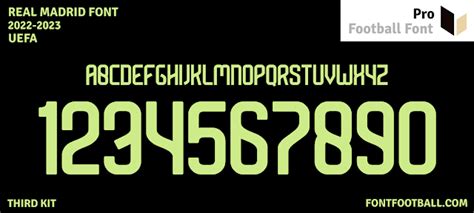
Real Madrid 2022 Font: A Comprehensive Guide
What is the Real Madrid 2022 Font?
Okay, so what exactly is the Real Madrid 2022 font ? It’s more than just some letters and numbers slapped on a jersey. It’s a carefully crafted typeface designed to represent the club’s brand , history, and values. This font is what you see on the back of the players’ jerseys during their matches, as well as in various promotional materials, and it becomes synonymous with that particular season. For the 2022 season, Real Madrid likely used a font that was both modern and classic, blending the traditional elegance of the club with a contemporary feel. This balance is crucial for maintaining their image as a global football powerhouse. The specific design elements, such as the font’s weight, spacing, and serifs (or lack thereof), all contribute to its overall impact. When Real Madrid chooses a font, they’re thinking about how it will look on television, on merchandise, and in print. They want something that’s easily readable, instantly recognizable, and, most importantly, something that screams Real Madrid . The font choice also needs to comply with La Liga’s regulations, which often set guidelines for jersey fonts. This means the font must be clear and distinguishable to ensure players are easily identifiable by referees and fans alike. Beyond its practical purposes, the Real Madrid 2022 font carries a lot of emotional weight. It’s part of the visual language that unites fans and players, creating a sense of belonging and pride. When you see that font, you immediately think of the memorable moments, the thrilling victories, and the legendary players who wore that jersey. It’s a symbol of the club’s identity and a reminder of its rich history and tradition. The font also needs to be versatile enough to work across various platforms, from digital media to physical products. It needs to look just as good on a small smartphone screen as it does on a giant banner at the Santiago Bernabéu stadium. This adaptability is key to maintaining a consistent brand image across all touchpoints. The Real Madrid 2022 font is a vital component of the club’s visual identity, representing its history, values, and aspirations. It is a carefully considered design choice that balances aesthetics, practicality, and emotional impact. When you see that font, you’re not just seeing letters and numbers; you’re seeing a symbol of one of the world’s most iconic football clubs.
Design and Characteristics
Delving into the design and characteristics of the Real Madrid 2022 font , it’s essential to recognize the subtle yet significant elements that make it unique. Typically, football fonts aim for a balance between readability and style . The Real Madrid 2022 font would likely incorporate clean lines and a distinct structure, ensuring that player names and numbers are easily visible on the pitch and on television. One key aspect of the design is the font’s weight. A font that’s too light might be difficult to see from a distance, while a font that’s too heavy could appear clunky and unprofessional. The Real Madrid 2022 font likely strikes a balance, using a medium weight that’s both legible and aesthetically pleasing. Another important consideration is the use of serifs. Serifs are the small decorative strokes that extend from the ends of letters. Serif fonts tend to look more traditional and formal, while sans-serif fonts have a more modern and minimalist appearance. Real Madrid often leans towards a sans-serif font for their jerseys, reflecting the club’s forward-thinking approach. The spacing between letters and numbers, known as kerning and tracking, also plays a crucial role. Proper spacing ensures that the text is easy to read and doesn’t look crowded or disjointed. The Real Madrid 2022 font would have carefully adjusted kerning and tracking to optimize readability . In addition to the basic letterforms, the font might also include unique design elements that reflect the club’s identity. This could include subtle curves, sharp angles, or custom ligatures (combinations of letters). These details add personality to the font and make it instantly recognizable as Real Madrid’s . The color of the font is also a key consideration. Real Madrid typically uses white or gold for their jersey fonts, reflecting the club’s colors and adding a touch of elegance . The color choice also needs to contrast well with the jersey color, ensuring that the text is easy to see. The font’s design also needs to be versatile enough to work across different sizes and formats. It needs to look just as good on a small jersey as it does on a large banner. This requires careful attention to detail and a design that scales well. Ultimately, the design and characteristics of the Real Madrid 2022 font are a reflection of the club’s values and aspirations. It’s a font that’s both stylish and functional , representing Real Madrid’s commitment to excellence on and off the pitch. When you see that font, you’re seeing a design that has been carefully crafted to represent one of the world’s most iconic football clubs.
Historical Context
Understanding the historical context of Real Madrid fonts provides valuable insight into the evolution of the club’s visual identity. Over the years, Real Madrid has used a variety of fonts, each reflecting the design trends and technological advancements of its time. In the early days of football, jersey fonts were often simple and utilitarian. The focus was on readability , with little attention paid to aesthetics . As football became more commercialized, clubs began to invest more in their visual branding, including their jersey fonts. The 1980s and 1990s saw the emergence of more stylish and distinctive fonts. Real Madrid experimented with different typefaces, trying to find a font that captured the club’s spirit. Some of these early fonts were quite bold and graphic, reflecting the design trends of the era. As technology advanced, clubs had more options when it came to font design. Computer-aided design (CAD) software allowed designers to create more complex and intricate fonts. Real Madrid began to use fonts that incorporated subtle design elements, such as curves, angles, and ligatures. In recent years, there has been a trend towards simpler and more minimalist fonts. This reflects a broader movement in design towards cleaner , more modern aesthetics. Real Madrid has embraced this trend, using fonts that are both stylish and easy to read . The historical context of Real Madrid fonts also reflects the changing regulations of football leagues. La Liga, the top professional football division in Spain, sets guidelines for jersey fonts. These guidelines ensure that fonts are legible and distinguishable , making it easier for referees and fans to identify players. Real Madrid has always complied with these regulations, while still trying to maintain a distinctive visual identity. The club’s font choices have also been influenced by its sponsorship deals . Real Madrid has partnered with some of the world’s leading sportswear brands, such as Adidas, who have played a role in designing the club’s jersey fonts. These partnerships have brought new technologies and design expertise to the table, helping Real Madrid stay at the forefront of football fashion. Ultimately, the historical context of Real Madrid fonts is a reflection of the club’s evolution and its commitment to excellence. From the simple fonts of the early days to the sophisticated typefaces of today, Real Madrid has always strived to find a font that captures the club’s spirit and values. When you see a Real Madrid jersey, you’re seeing a font that has been shaped by history and designed to represent one of the world’s most iconic football clubs.
How to Obtain and Use the Font
Wrapping things up, the Real Madrid 2022 font is more than just a typeface; it’s a symbol of the club’s legacy , values , and global appeal . From its design elements to its historical context, every aspect of the font contributes to Real Madrid’s visual identity. While obtaining the official font may be tricky due to copyright restrictions, exploring similar fonts and using them responsibly can still allow you to capture the essence of Real Madrid’s branding. Remember to always respect intellectual property rights and use fonts in a way that enhances your projects without infringing on the club’s trademarks. Whether you’re a die-hard fan, a design enthusiast, or simply curious about football fonts, understanding the Real Madrid 2022 font provides a fascinating glimpse into the world of sports branding. So, go ahead, explore the world of fonts, and let your creativity soar! Just remember to always do it legally and with respect for the rights of others. And that’s all, folks! Hope you found this guide helpful and informative. Until next time, keep creating and keep supporting Real Madrid !